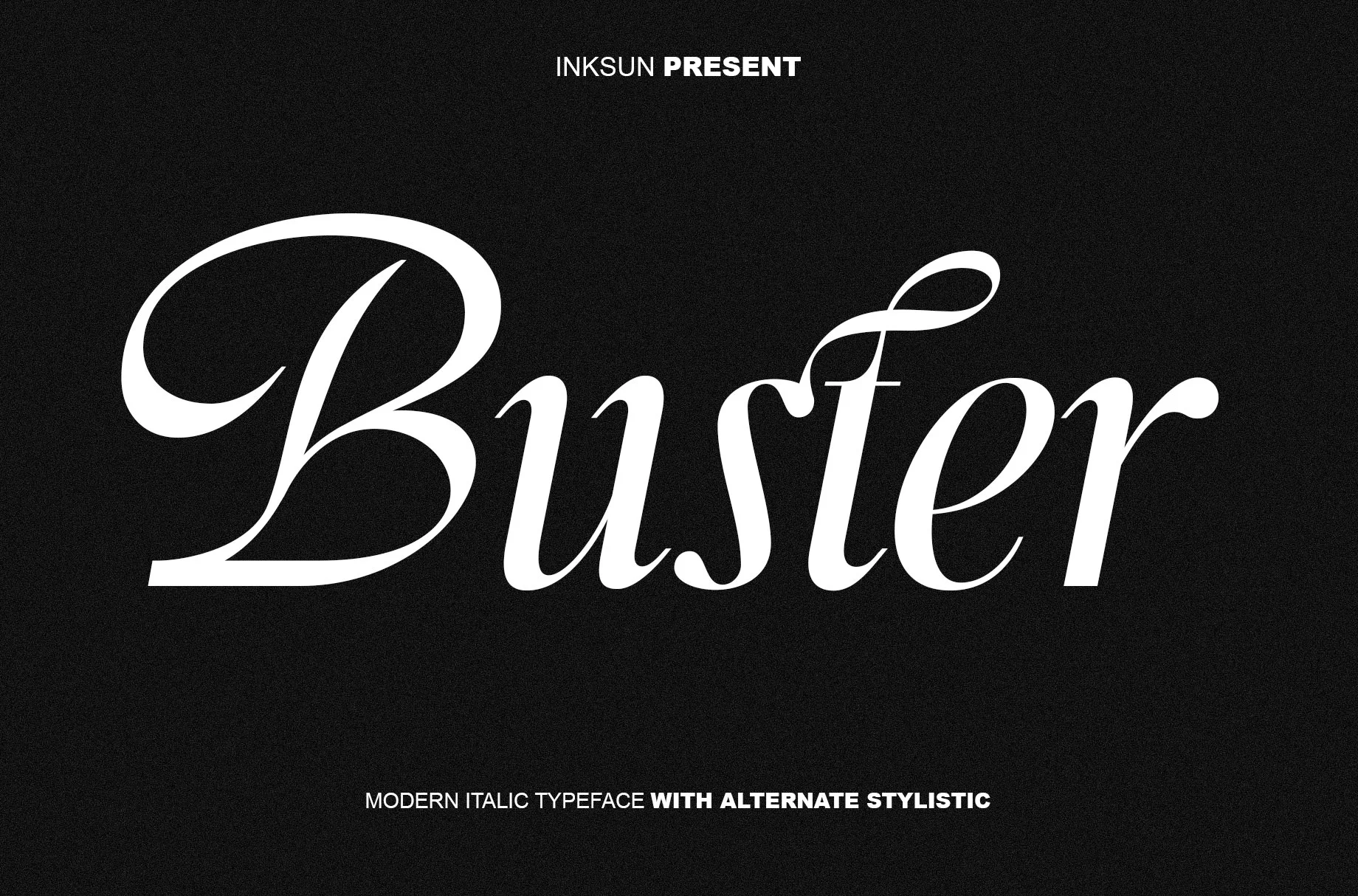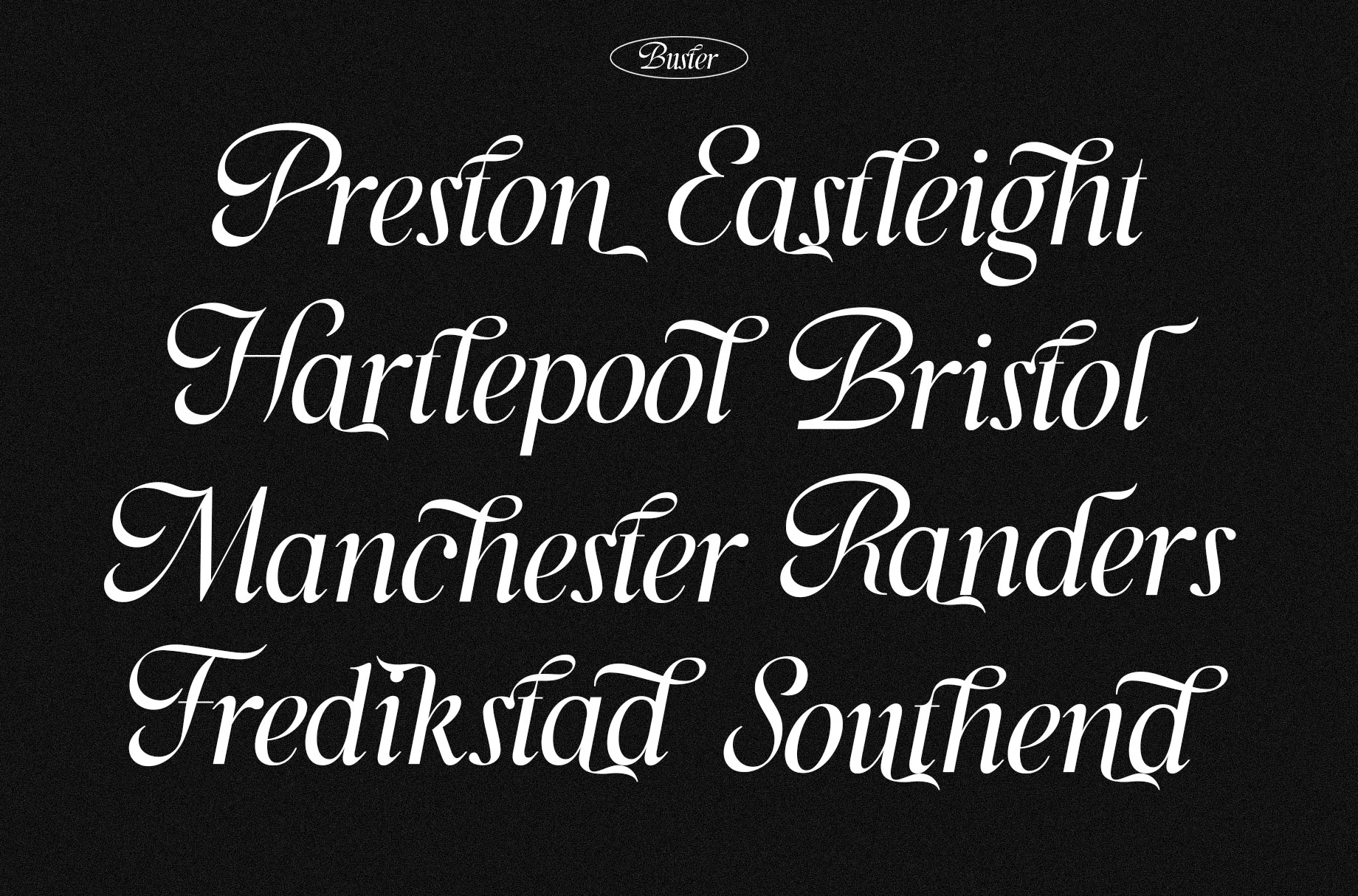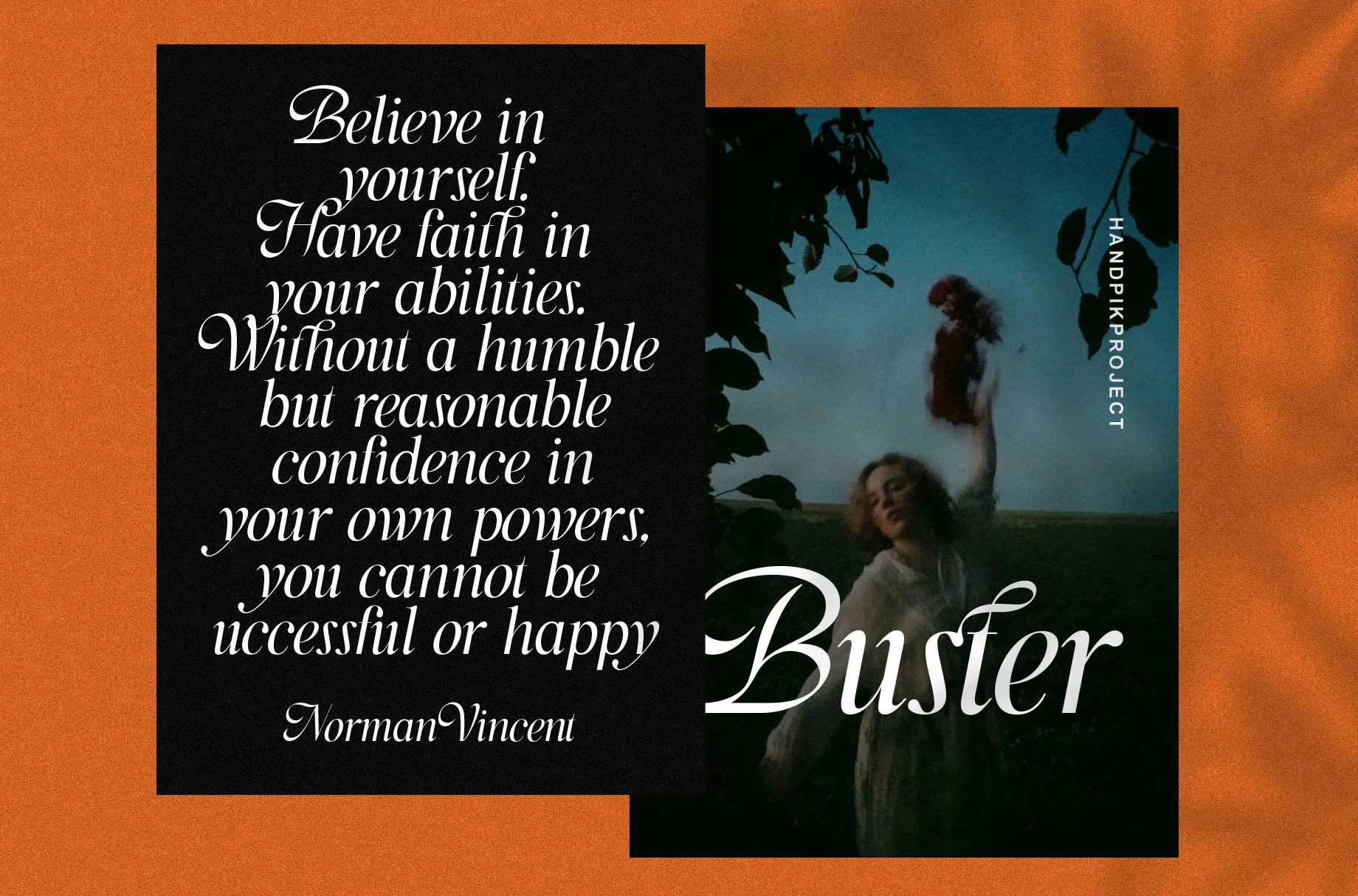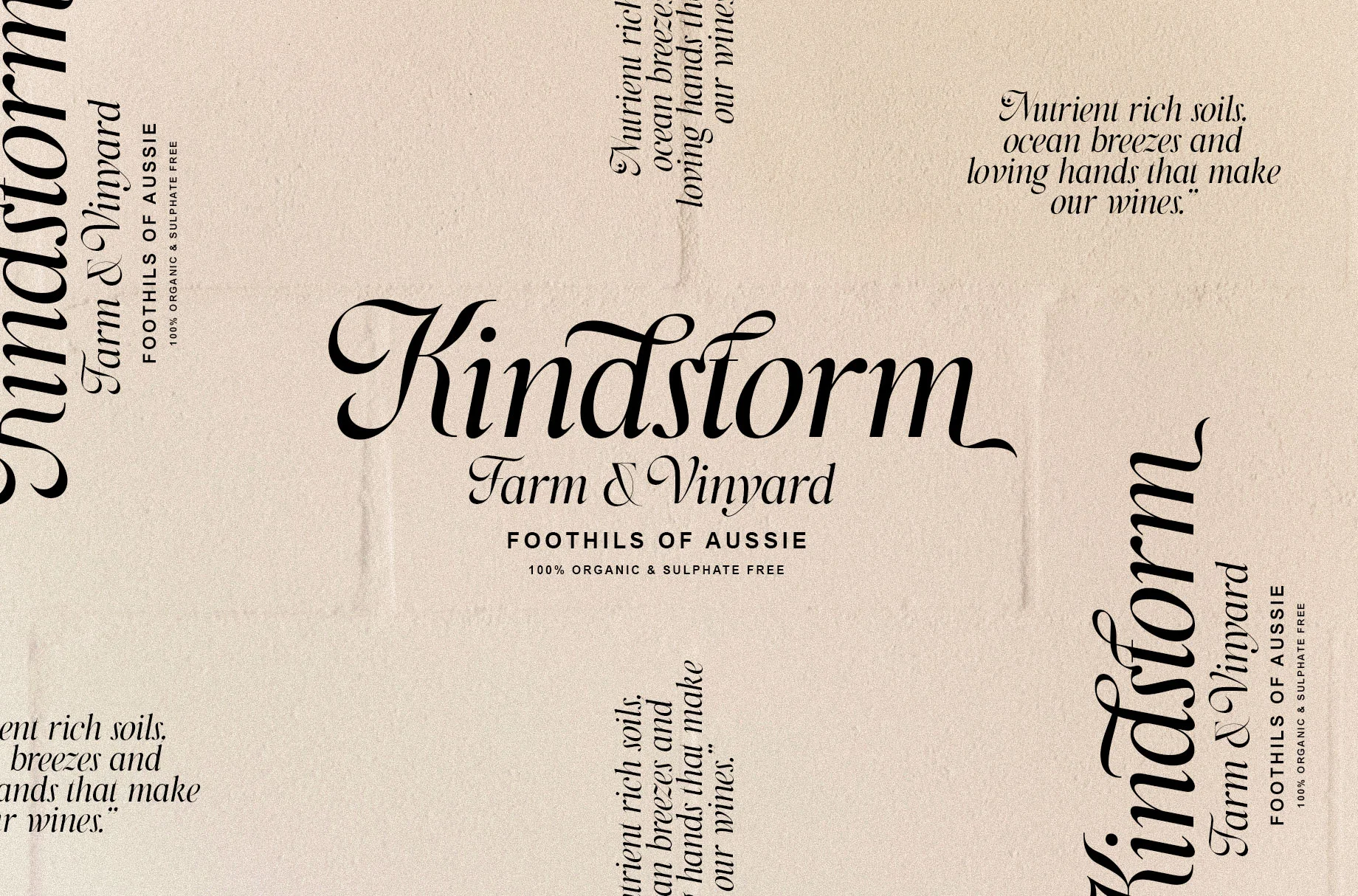
Buster
Introducing Buster, a cutting-edge modern italic font that effortlessly pairs bold aesthetics with graceful subtleties. Its striking design is a testament to the power of contrast, merging a robust structure with a feather-light italic touch. Make an impression with Buster, the perfect blend of strength and elegance, designed to leave an enduring mark with every word. Buster - offering an engaging twist to the conventional, in a unique balance of boldness and subtlety.
* Ligature and beautiful alternate